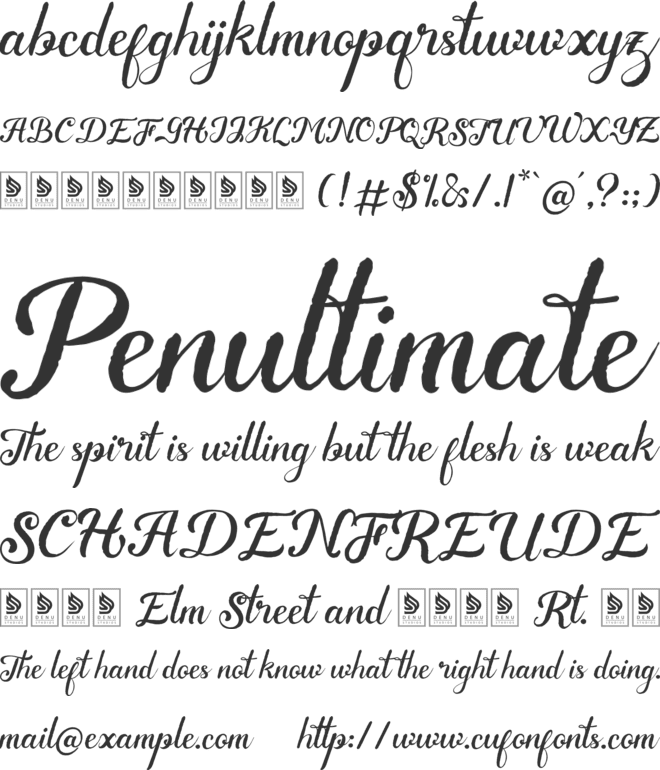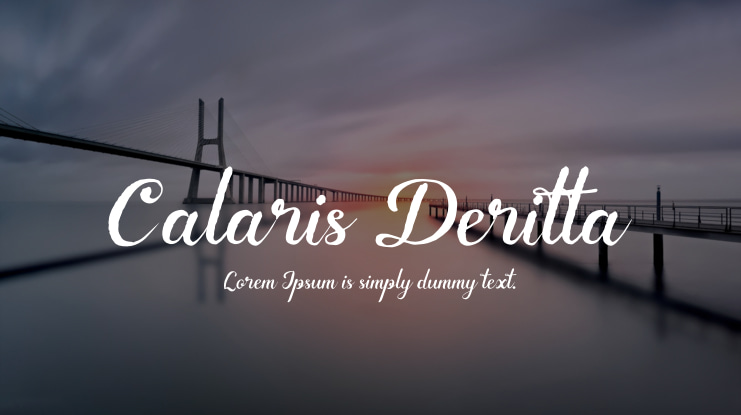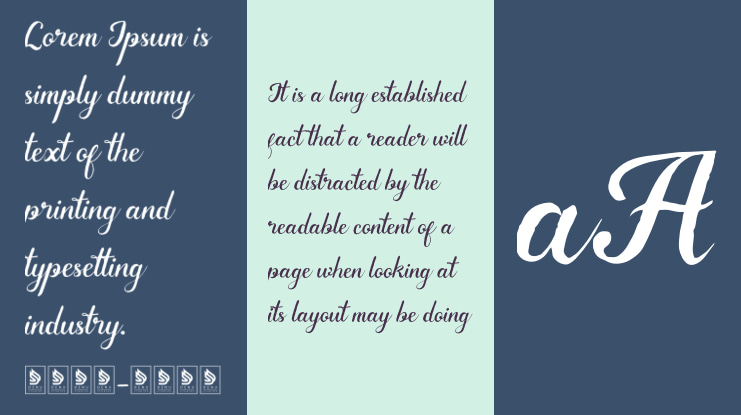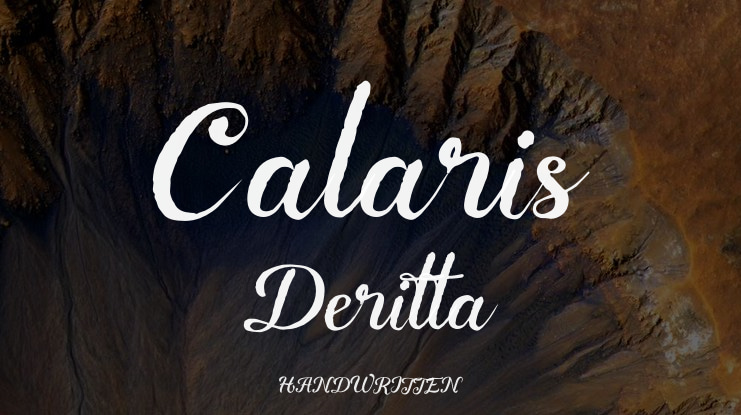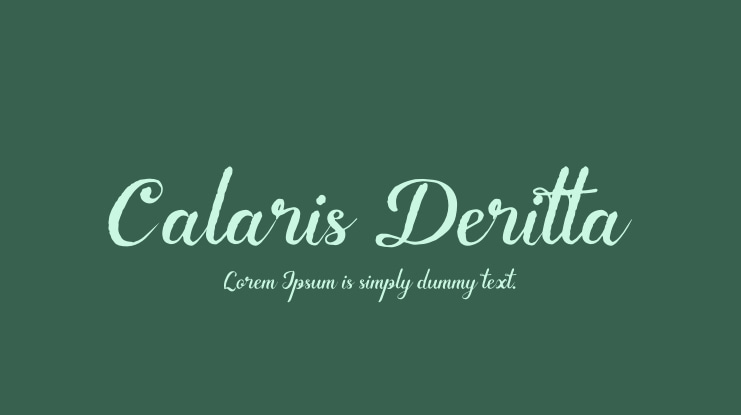
Calaris Deritta Font
Calaris Deritta | Brush Handwritten is a font that perfectly suits a wide range of projects, including:
- Logos - Branding projects - Homeware designs - Product packaging - Mugs - Quotes - Posters - Shopping bags - T-shirts - Book covers - Name cards - Invitation cards - Greeting cards - Labels - Photography - Watermarks - Special events
Essentially, it fits any creative endeavor that could use a dash of Brush Handwritten style.